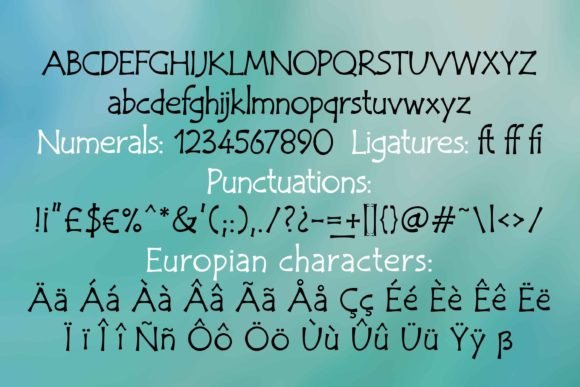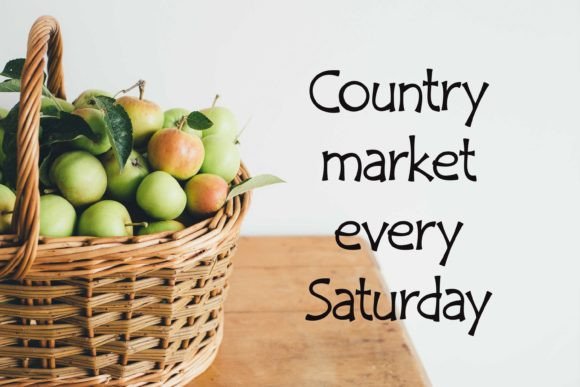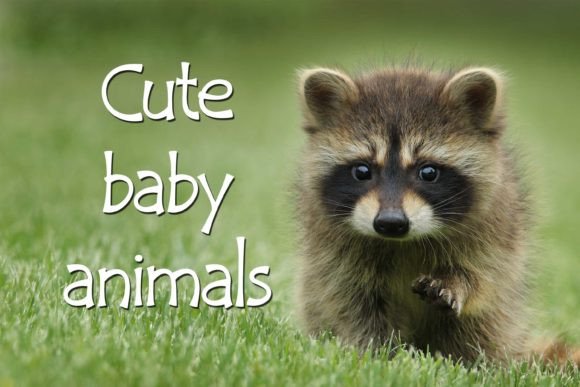
Introduction to Motyfa Font
Motyfa is a stunning and versatile handcrafted serif font.
It can easily be matched to any project, so add it to your creative ideas and notice how it makes them stand out Motyfa is fantastic for your next project, including branding, wedding invitations, signage, & more.
Key Features of Motyfa Font
Why Choose Motyfa Font?
Motyfa Font offers exceptional quality and versatility, making it a valuable addition to your design toolkit. Whether you’re creating for personal projects or commercial use, Motyfa Font delivers professional results.